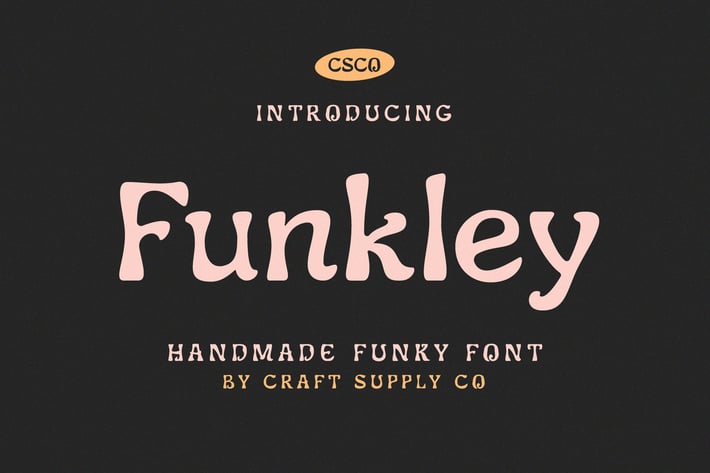
Funkley - Handmade Funky Font
Introducing Funkley - Handmade Funky Font
Introducing Funkley - Handmade Funky Font. It can be used to create almost all types of design projects like print materials. Just use your imagination and your project will become more alive and look great than ever with Funkley - Handmade Funky Font.
- Uppercase & Lowercase
- Numerals & Punctuations (OpenType Standard)
- Accents (Multilingual characters) (AÀÁÂÃÄÅCÇDÐEÈÉÊËIÌÍÎÏNÑOØÒÓÔÕÖUÙÜÚÛWYÝŸỲŸÆŒßÞ)